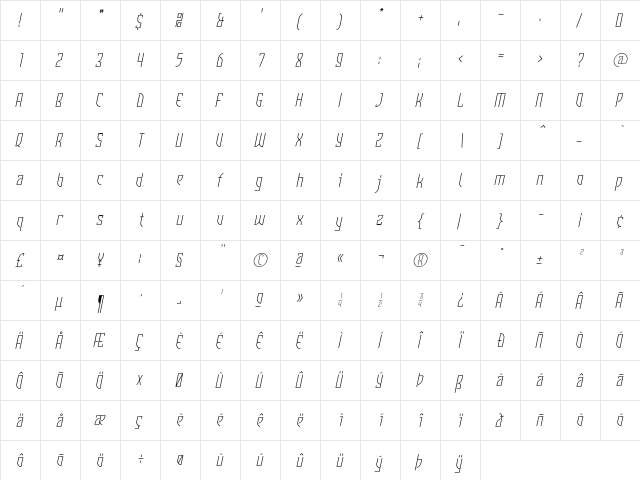
Komunique LightItalic
Design Context for Komunique Typeface
Komunique is a composed and adaptable typeface that performs quietly and consistently across a wide range of design contexts. Its italic angle brings a sense of urgency and motion to the letterforms. Its slender proportions lend an understated elegance to any composition.
Pro Tip: Try Komunique for annotation and caption copy alongside an upright companion — the contrast in angle creates a dynamic but ordered typographic system.